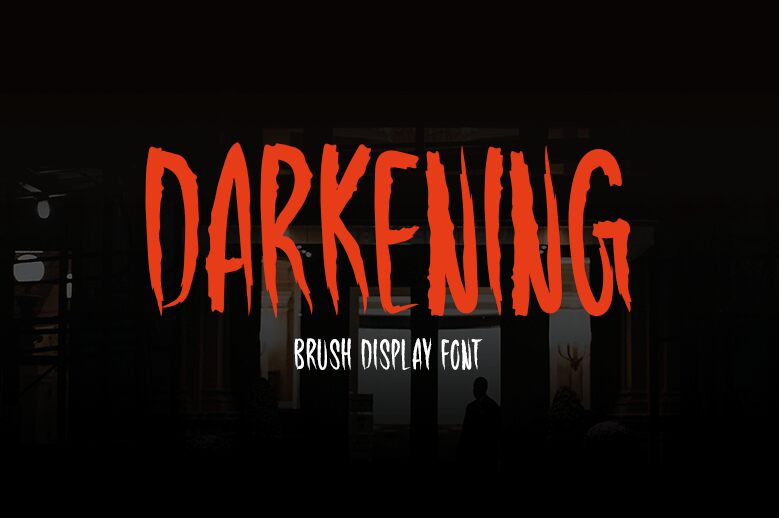
Darkening
Darkening, designed by Md Shohail Bhuian, is a captivating brush display font that exudes a spine-chilling aura. With its semi-light weight and extra-condensed width, Darkening adds a touch of darkness to any project it graces.
Perfect for creating an unsettling atmosphere, this font is ideal for stationary, logos, t-shirts, and print designs that demand attention. Its eerie style makes it equally suitable for website headers, picture frames, and flyers that aim to leave a lasting impression on the viewer's mind. The versatility of Darkening extends further to album covers, posters, and image sliders where it brings forth an enigmatic charm.
Unleash the power of Darkening to captivate your audience with its hauntingly beautiful typography.